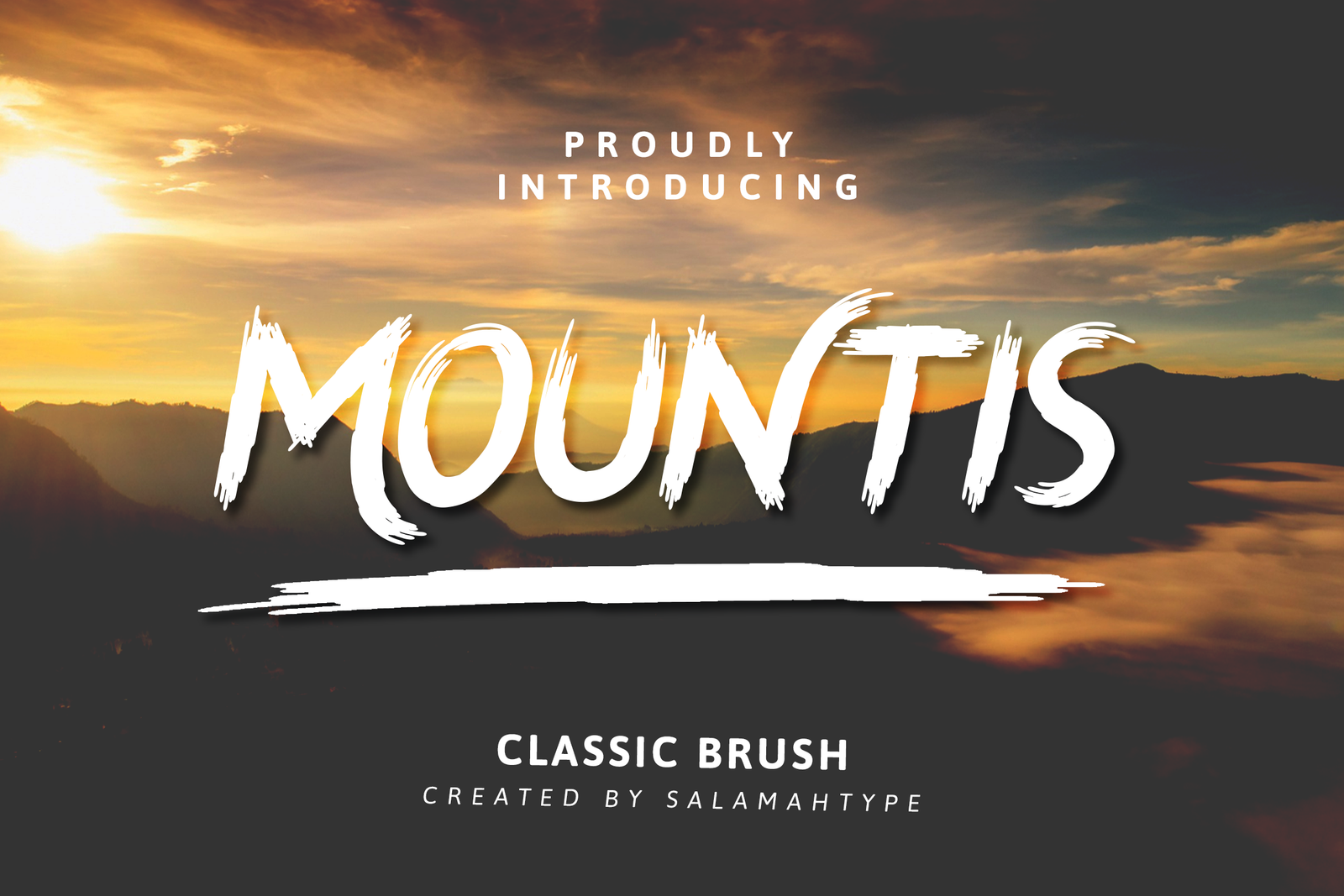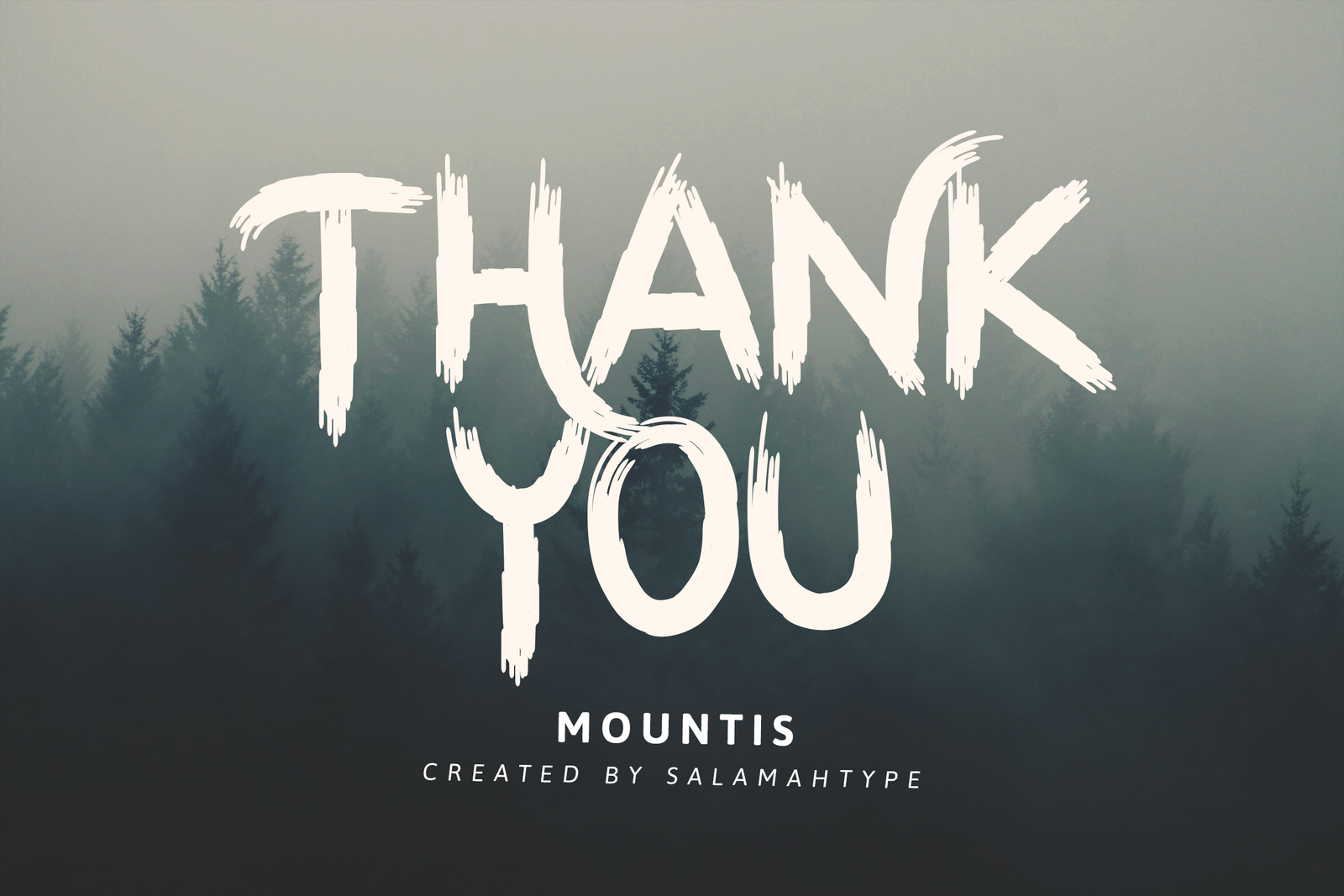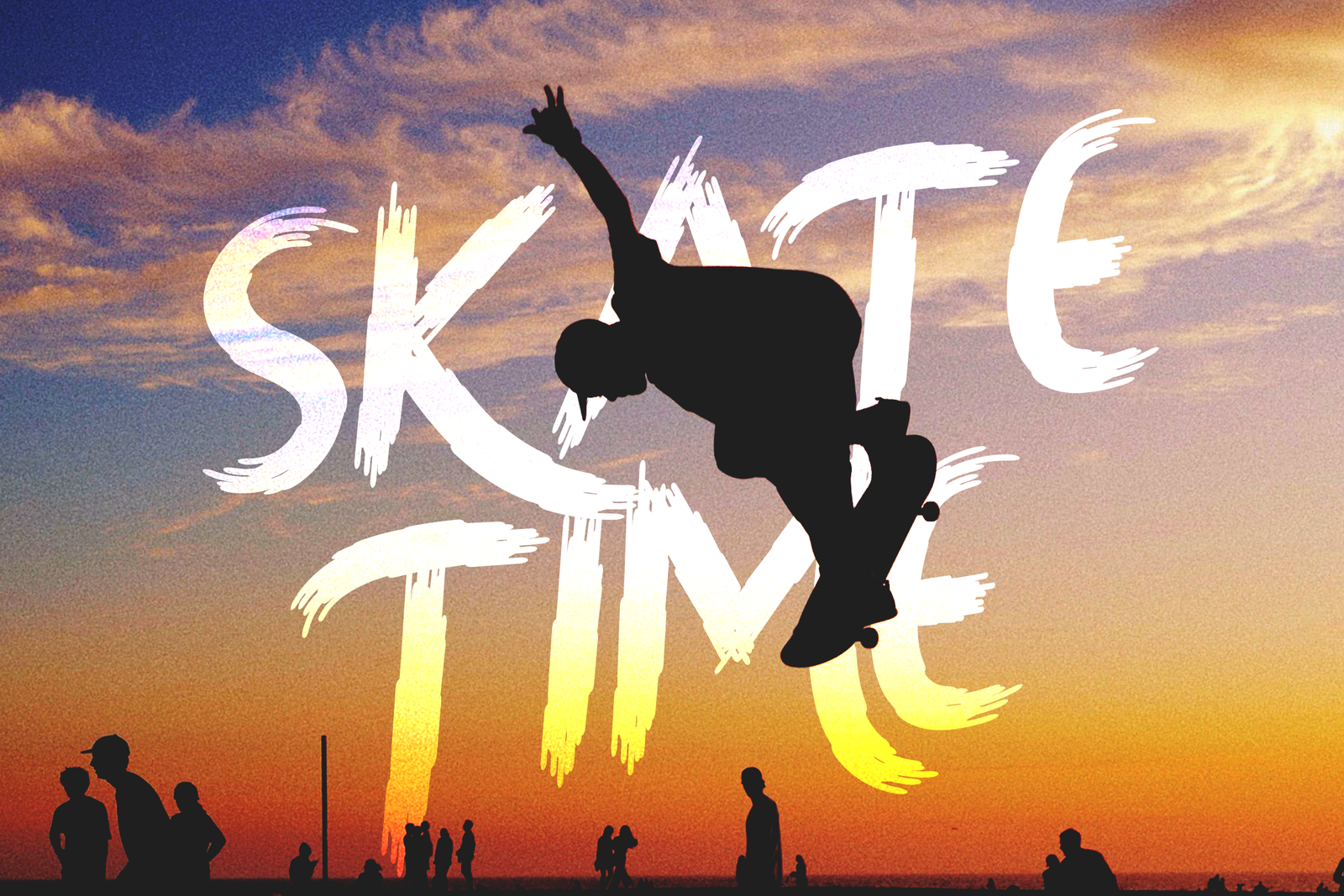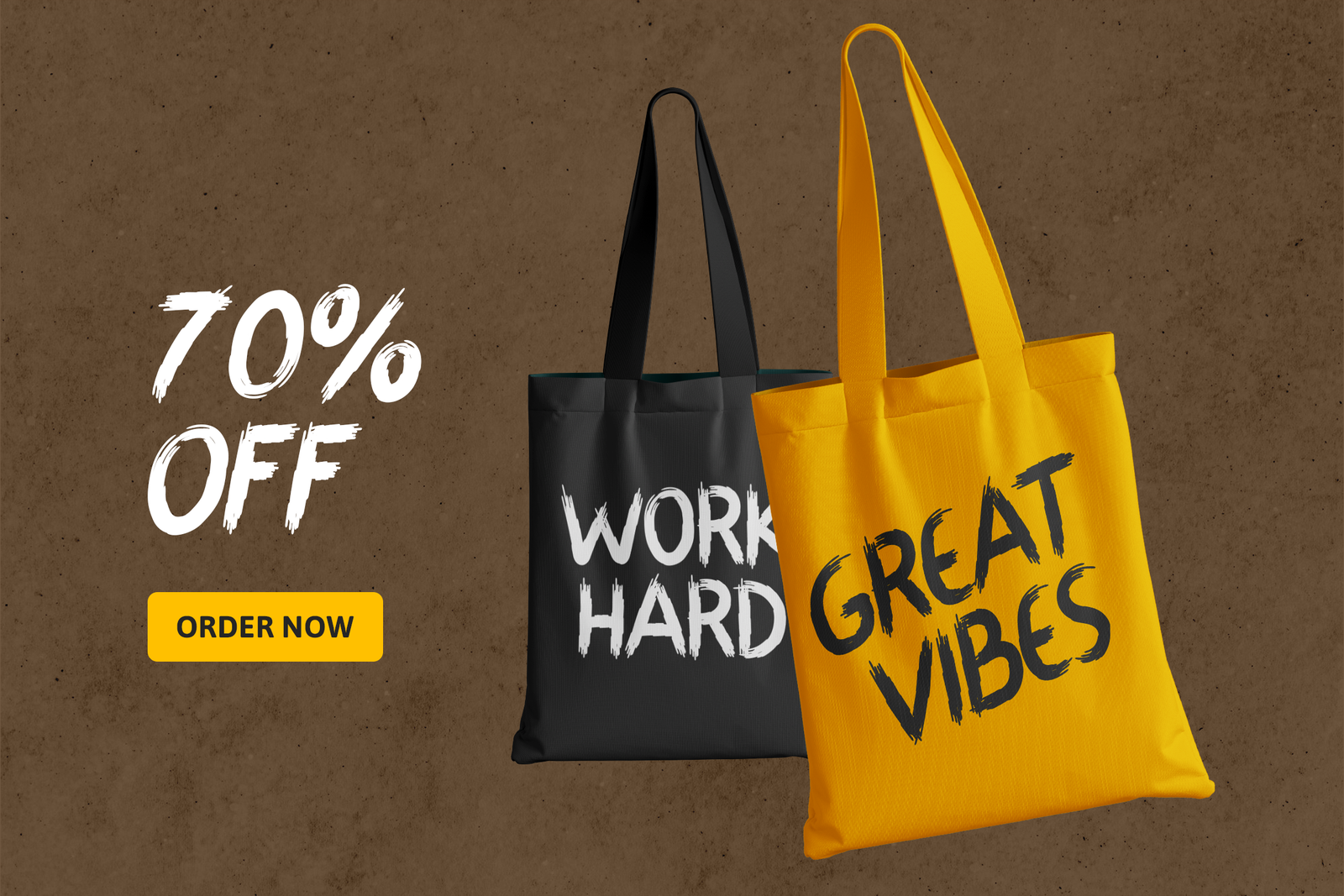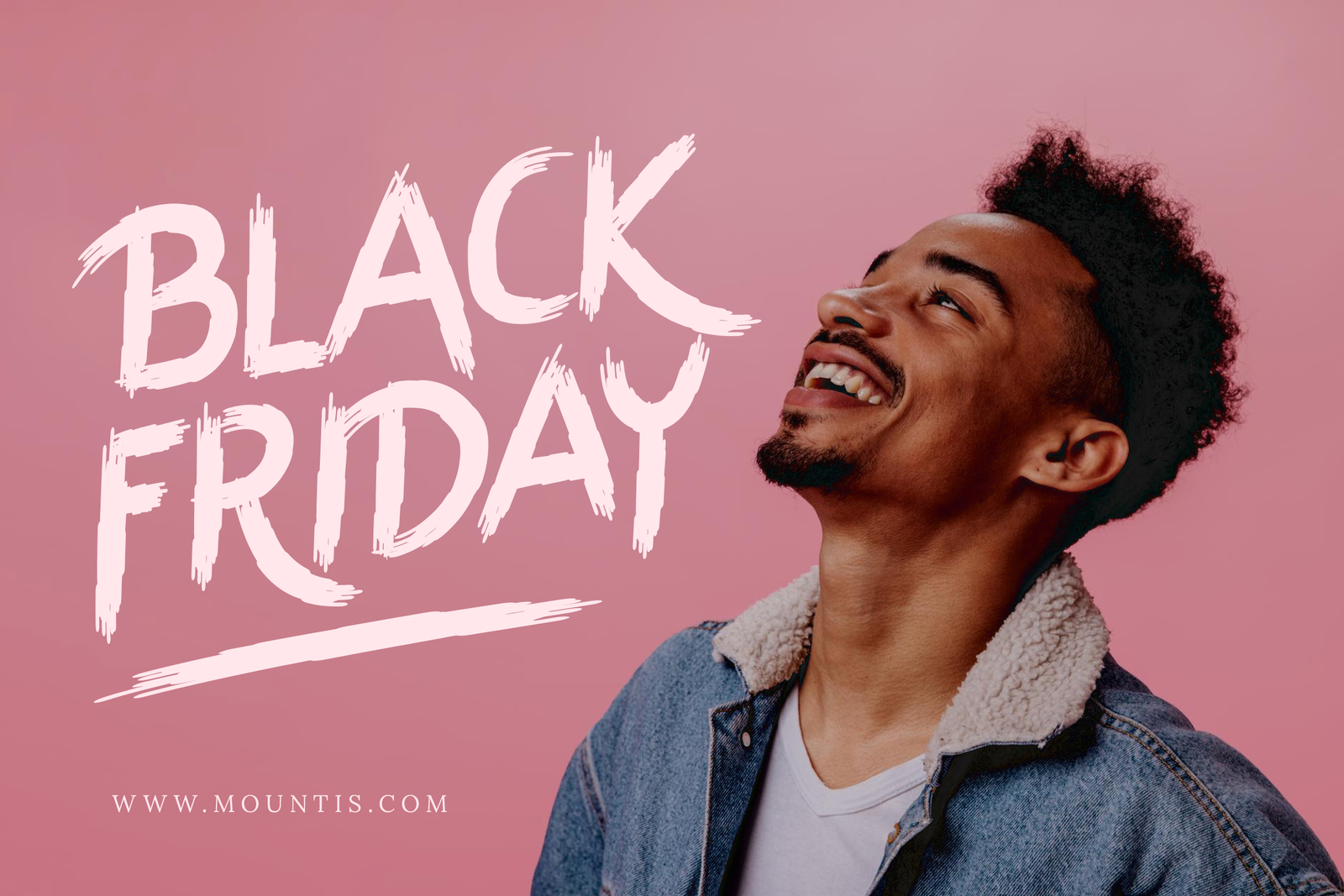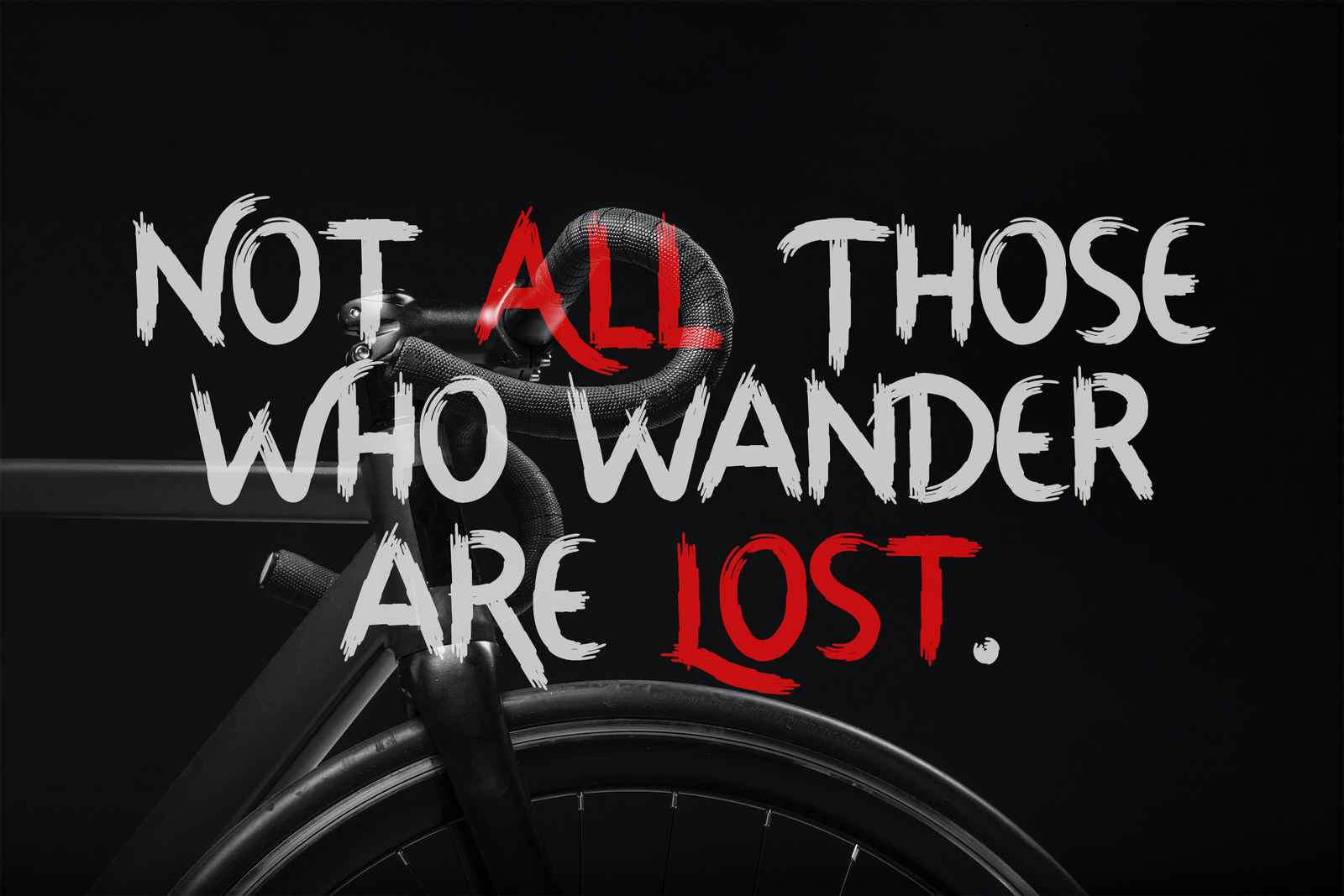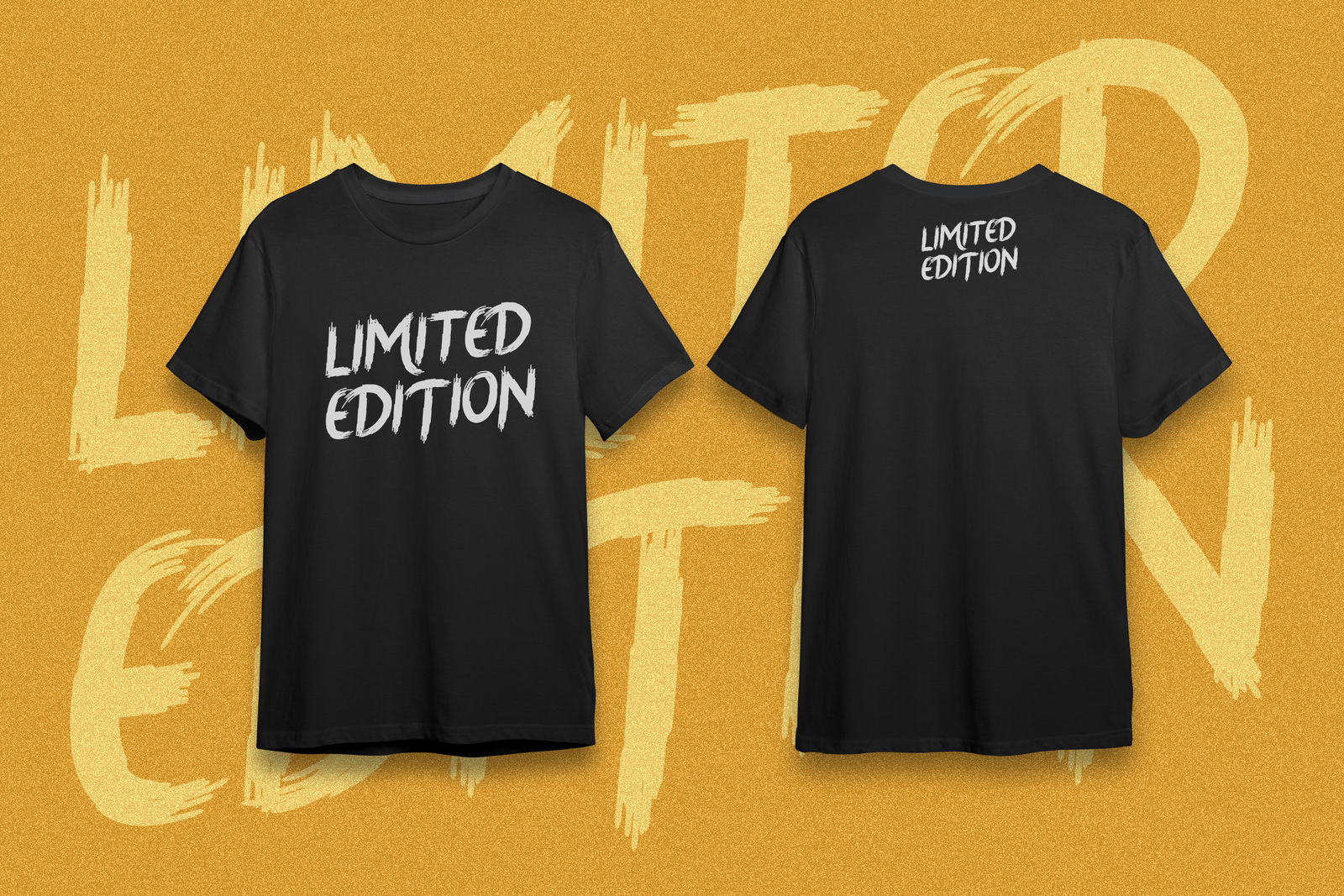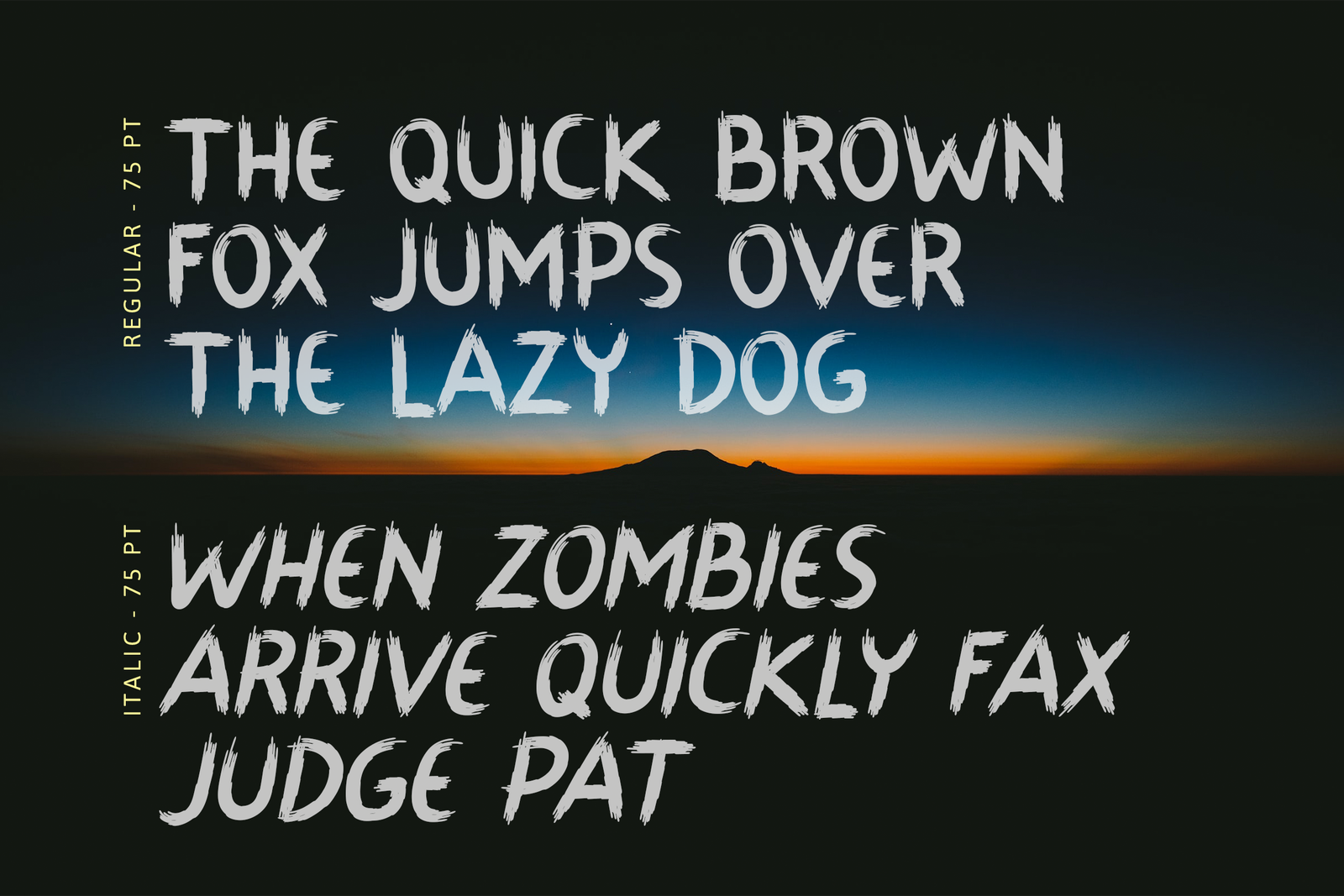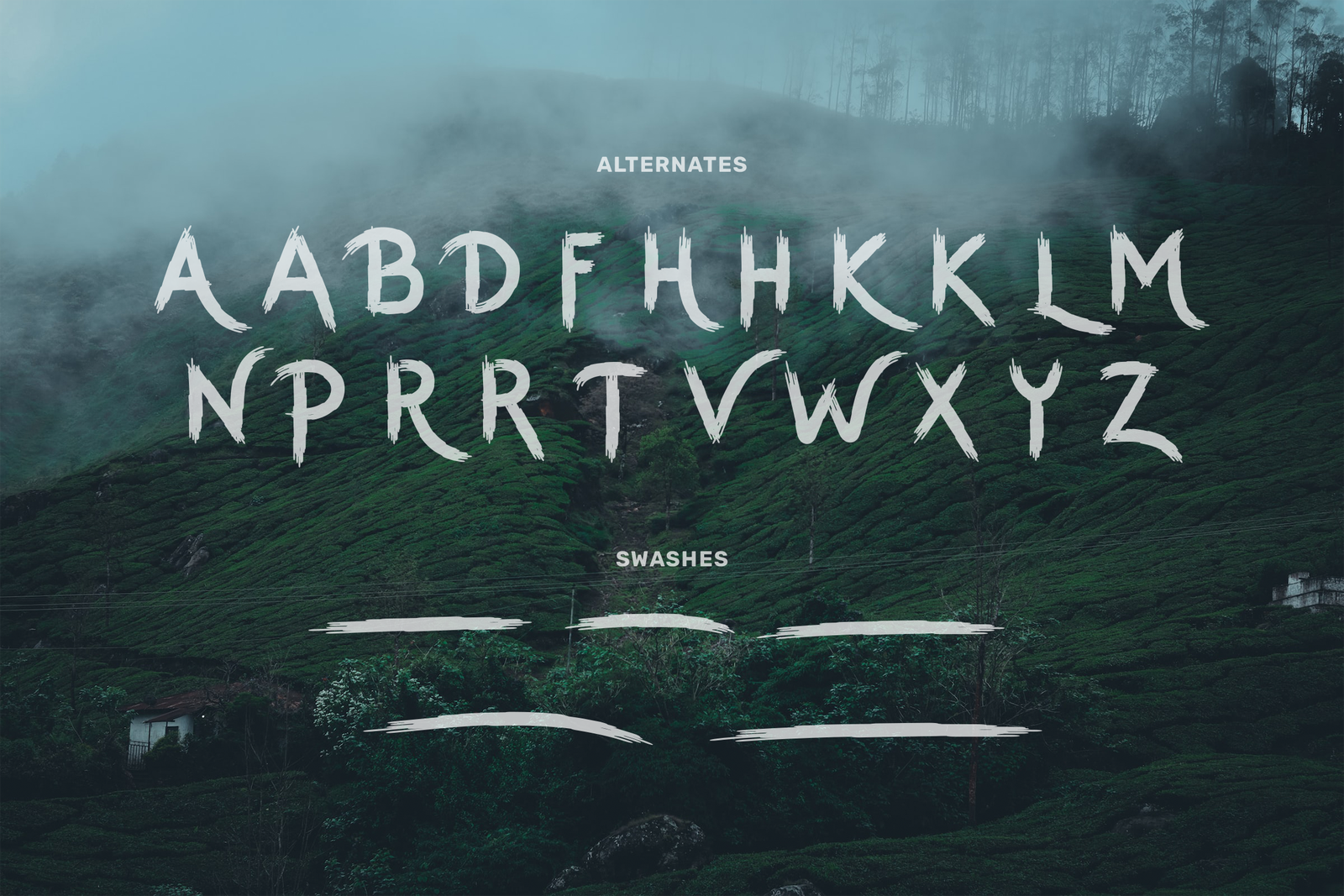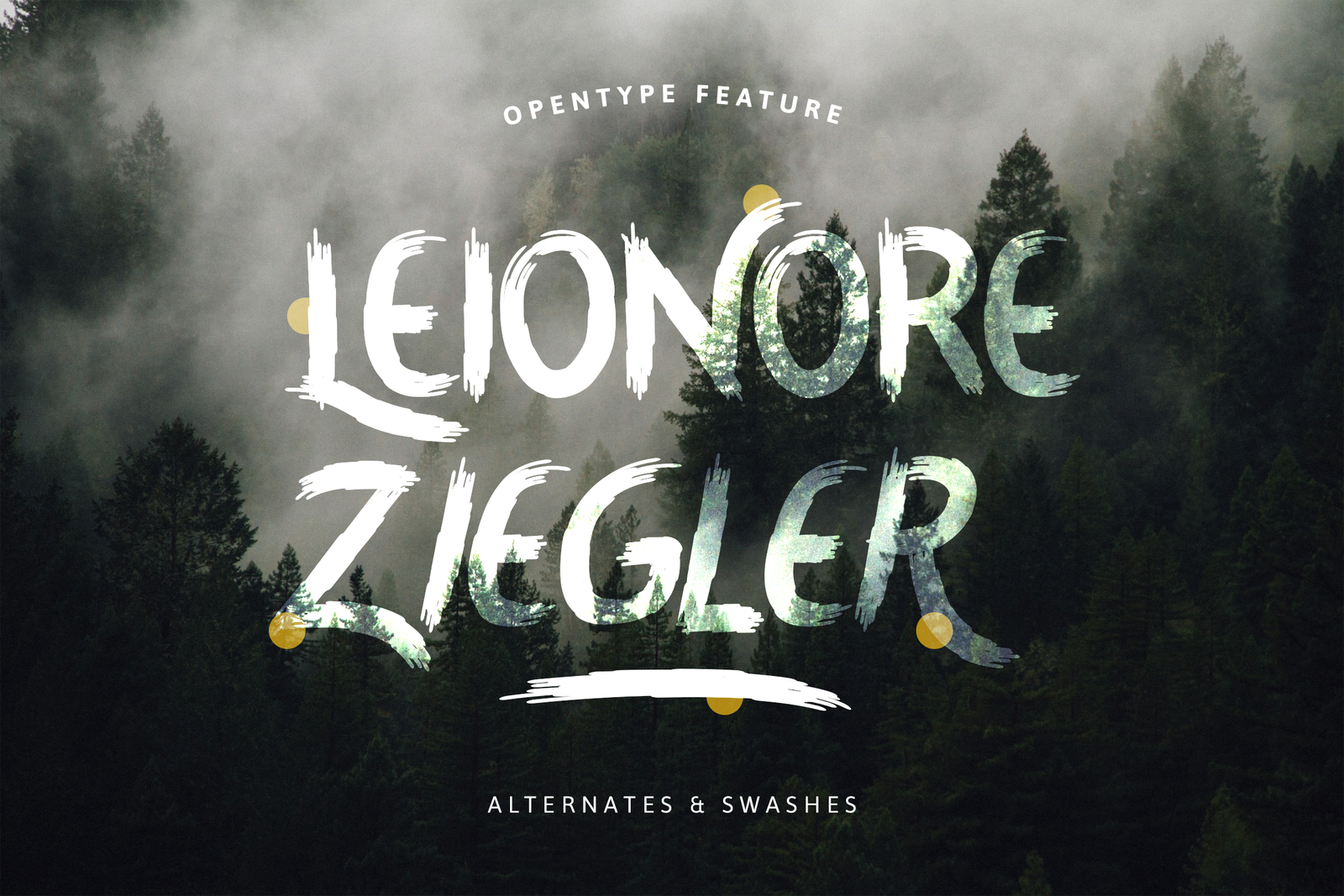
MOUNTIS
MOUNTIS - ITALIC
Introducing our brush font called “MOUNTIS” – A stylish and classic brush font with alternates. Perfect for branding project, logos, websites, quotes, posters, magazines, social media and more.
Features:
• Regular and Italic version
• Allcaps
• Symbol and punctuation
• Alternates
Mountis Brush